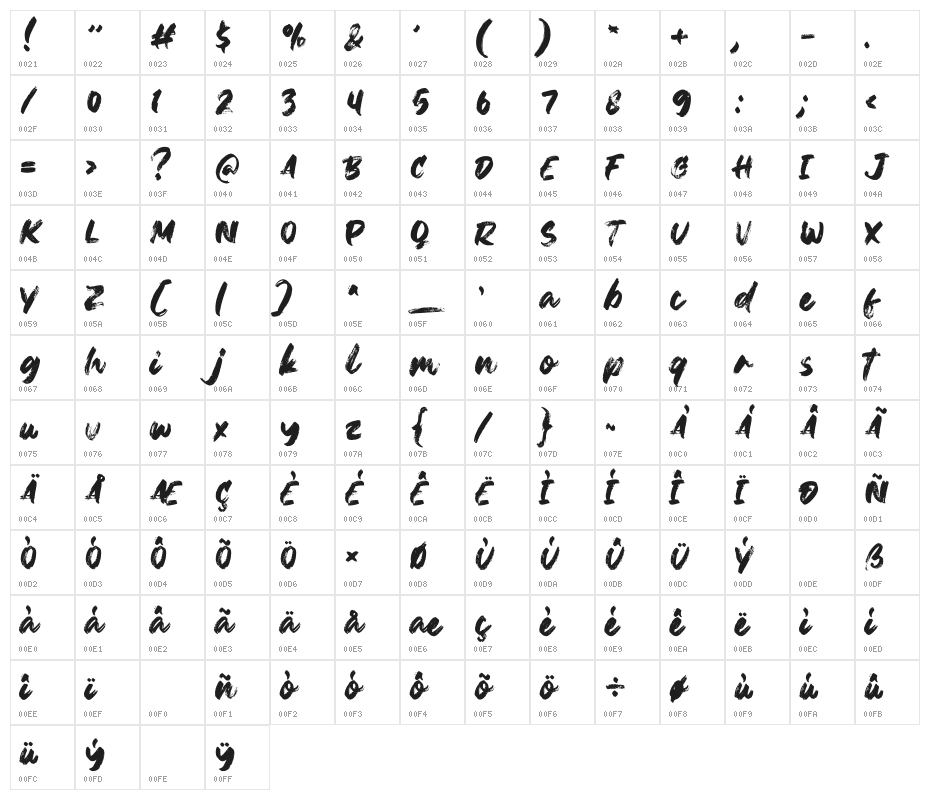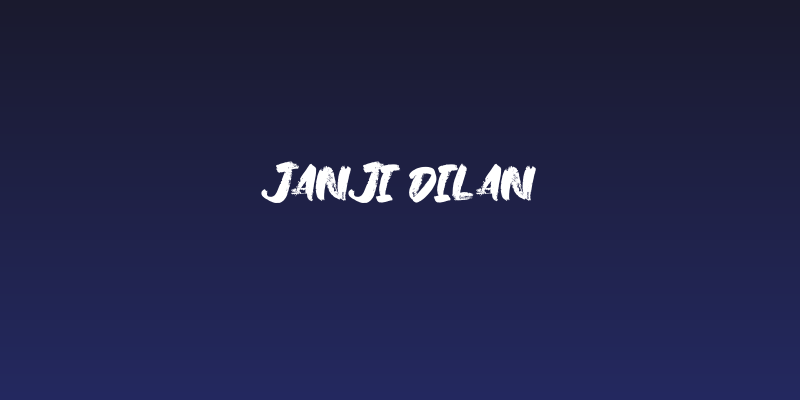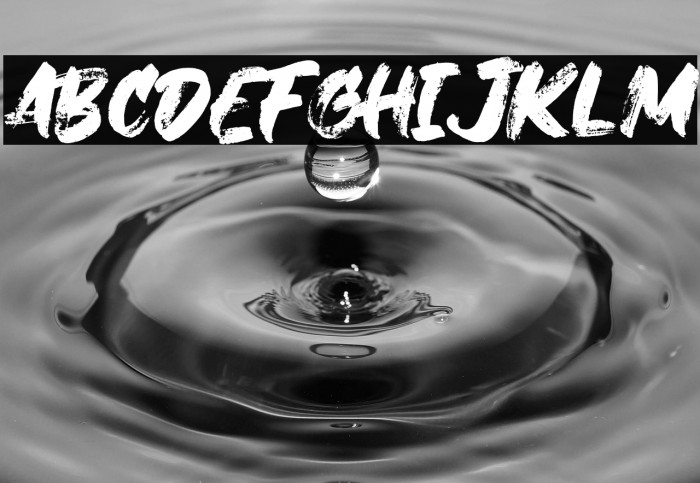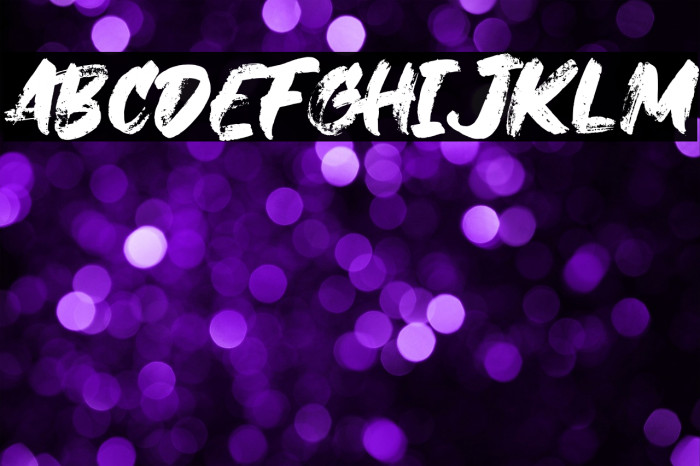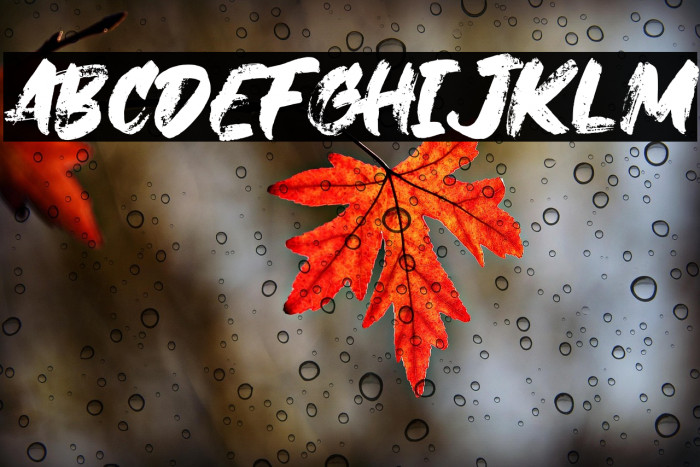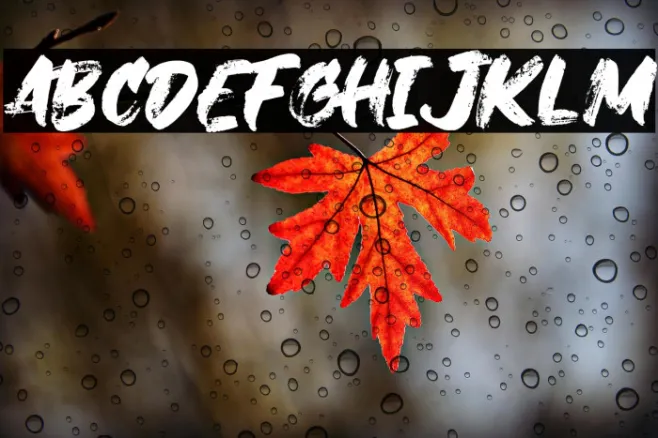
Janji Dilan Font
Janji Dilan Description
This font features a bold, expressive brush style that exudes energy and dynamism. The strokes are thick and textured, giving a hand-painted appearance that adds a personal touch to any design. The uppercase and lowercase letters maintain a consistent flow, while the numbers and special characters complement the overall aesthetic. The irregular edges and varying stroke widths create a sense of movement and spontaneity, making it ideal for projects that require a lively and artistic vibe.
| Proposed Projects | Perfect for posters, album covers, branding, and any creative project that needs a dynamic and artistic touch. |